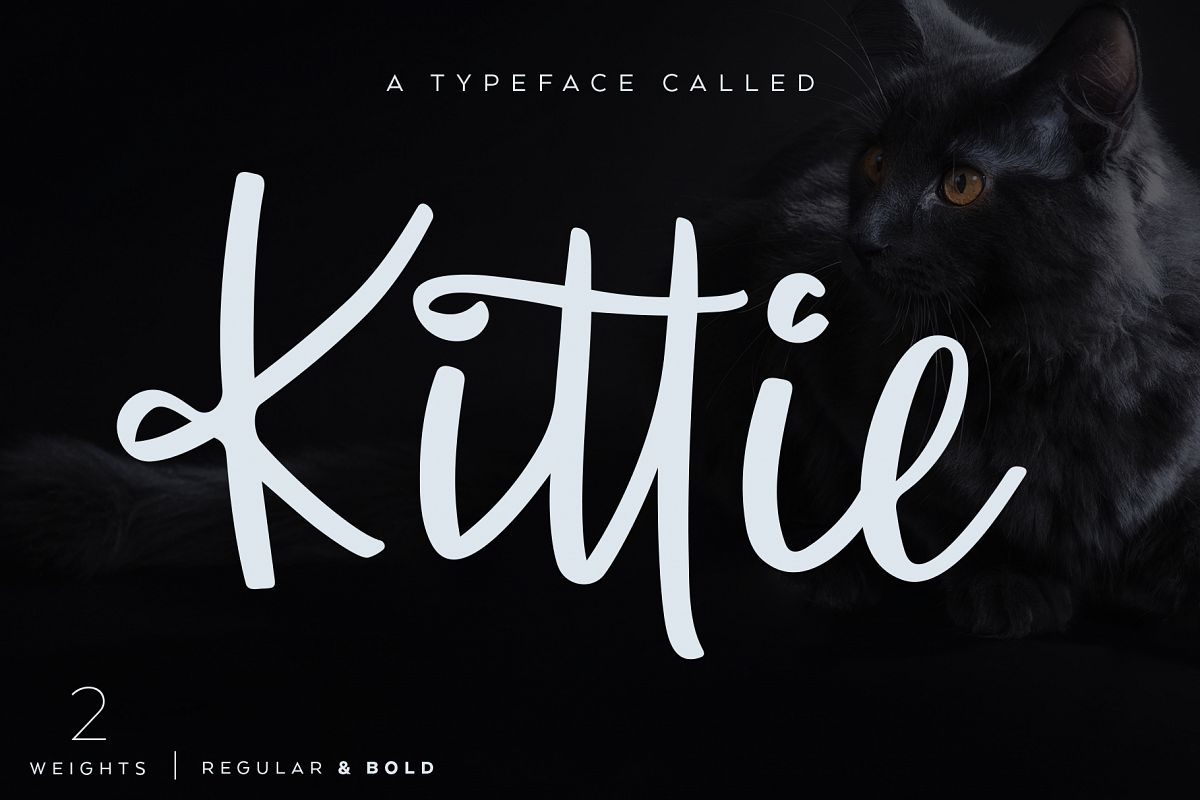
Kittie | Regular & Bold
Kittie
KittieBold
Kittie is a hand written script font with plenty of ligatures. With it's unique character, Kittie is perfect for logos, branding and quotes as well as social media posts, packaging, invitations, posters, flyers, etc.
Kittie comes in two weights, regular and bold.
Kittie also has smooth edges which makes it excellent for vinyl cutting.